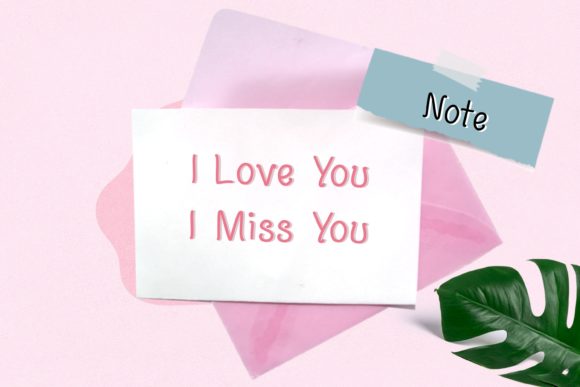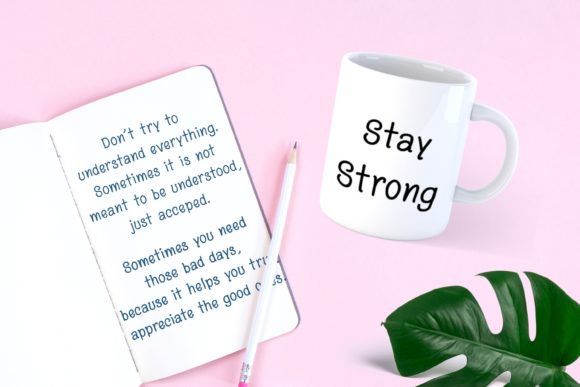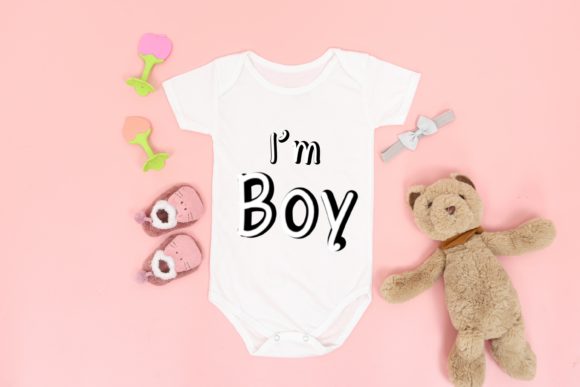
Candy Baby Font: The Sweetest Addition to Your Design Collection
Are you tired of using the same old fonts in your designs? Look no further than Candy Baby Font, a cute, clean, and thin lettered display font that’s sure to add a touch of sweetness to your creations. In this article, we’ll dive into the world of Candy Baby Font and explore its features, benefits, and uses.
What is Candy Baby Font?
Candy Baby Font is a modern, sans-serif font that’s perfect for designers and crafters looking for a fresh and playful touch. Its clean and thin lettering makes it ideal for use in a variety of design projects, from digital graphics to print materials.
Key Features of Candy Baby Font
- Cute and Playful: Candy Baby Font is a sweet and joyful font that’s sure to bring a smile to your face. Its playful vibe makes it perfect for designs that require a touch of whimsy.
- Clean and Thin Lettering: The font’s clean and thin lettering makes it easy to read and perfect for use in a variety of design projects.
- High-Quality Design: Candy Baby Font is designed with high-quality craftsmanship in mind, ensuring that your designs look professional and polished.
Benefits of Using Candy Baby Font
So, why should you choose Candy Baby Font for your design projects? Here are just a few benefits of using this sweet font:
- Adds a Touch of Whimsy: Candy Baby Font adds a touch of whimsy and playfulness to your designs, making them stand out from the crowd.
- Perfect for Kids’ Designs: The font’s cute and playful vibe makes it perfect for designs aimed at kids, such as children’s party invitations, nursery decor, and kids’ clothing.
- Versatile: Candy Baby Font is versatile and can be used in a variety of design projects, from digital graphics to print materials.
- Easy to Pair: The font is easy to pair with other fonts, making it perfect for use in multi-font designs.
Uses for Candy Baby Font
Candy Baby Font is perfect for a variety of design projects, including:
- Digital Graphics: Use Candy Baby Font to create eye-catching digital graphics, such as social media posts, blog headers, and email newsletters.
- Print Materials: The font is perfect for use in print materials, such as brochures, flyers, and business cards.
- Crafting Projects: Candy Baby Font is perfect for use in crafting projects, such as handmade cards, scrapbooking, and DIY decor.
- Kids’ Designs: The font’s cute and playful vibe makes it perfect for designs aimed at kids, such as children’s party invitations, nursery decor, and kids’ clothing.
Tips for Using Candy Baby Font
Here are a few tips for getting the most out of Candy Baby Font:
- Use it Sparingly: While Candy Baby Font is cute and playful, it can be overwhelming if used too much. Use it sparingly to add a touch of whimsy to your designs.
- Pair it with Other Fonts: The font is easy to pair with other fonts, making it perfect for use in multi-font designs.
- Experiment with Colors: Candy Baby Font looks great in a variety of colors, so don’t be afraid to experiment and find the perfect hue for your design.
In conclusion, Candy Baby Font is a sweet and joyful font that’s perfect for designers and crafters looking to add a touch of whimsy to their creations. Its clean and thin lettering makes it easy to read, and its playful vibe makes it perfect for designs aimed at kids. With its high-quality design, ease of use, and versatility, Candy Baby Font is sure to become a favorite in your design collection.